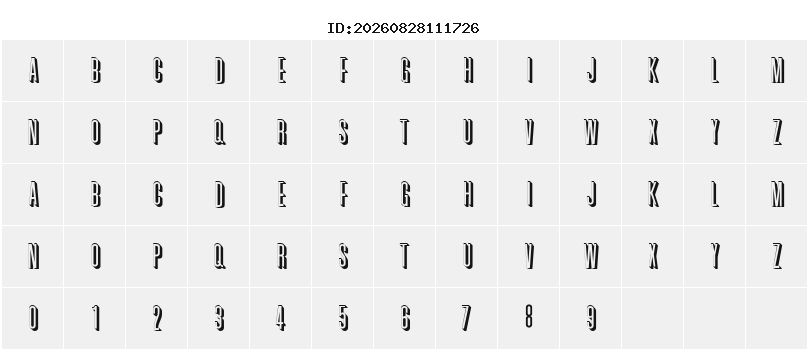
Torchwood Shadow Preview
• Font Name: Torchwood Shadow
• Full Font Name: Torchwood Shadow
About Torchwood Shadow.ttf
Torchwood Shadow.ttf is a modern, elegant sans-serif font designed for ultimate readability and visual harmony. Perfect for branding, headlines, web design, and print materials.